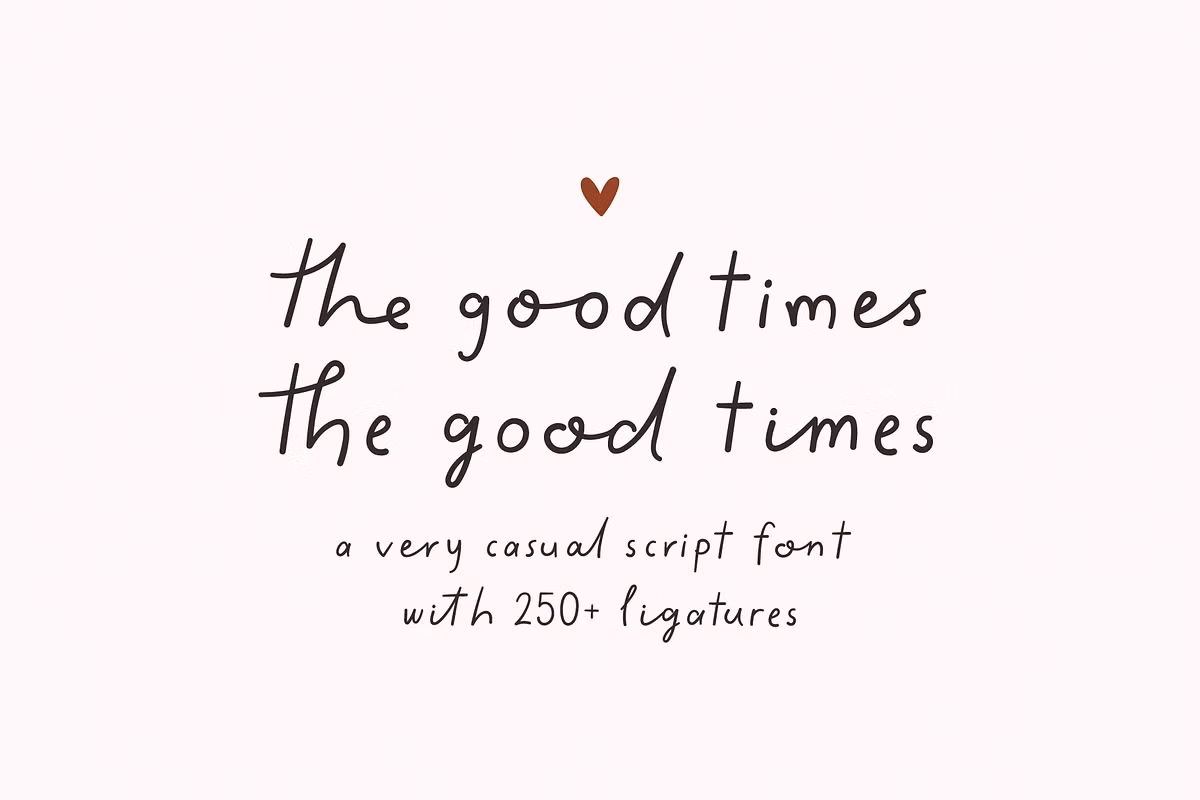
The Good Times Ligature Script Font is perfect for nostalgic branding projects, vintage-inspired designs, retro celebration materials, feel-good marketing campaigns, cheerful greeting cards, positive lifestyle brands, happy event invitations, uplifting social media graphics, joyful wedding stationery, optimistic business communications, memorable anniversary designs, and heartwarming creative projects.
The Good Times Ligature Script Font is exciting because it captures the essence of joyful nostalgia and positive memories through its flowing ligature script that embodies the warmth, happiness, and carefree spirit of life's most cherished moments and celebrations. This delightful typeface features elegant letter connections and cheerful character details that evoke feelings of contentment, gratitude, and the simple pleasures that make life meaningful. The font's optimistic aesthetic creates instant emotional connections with audiences who appreciate positivity, nostalgia, and the celebration of good times and happy memories.
The Good Times Ligature Script Font includes comprehensive font families: Regular Cheerful Style, Bold Celebration Weight, Light Happy Touch, Medium Joyful Balance, Italic Flowing Movement, Condensed Cozy Format, Extended Festive Width, Ligature Connection Sets, Shadow Warm Effects, and Special Celebration Symbols, providing complete solutions for positive and nostalgic design projects that celebrate life's happiest moments and most cherished experiences.
This uplifting typography solution transforms ordinary communications into joyful celebration experiences through its authentic nostalgic aesthetic and positive design language. The Good Times Ligature Script Font Free Download enables designers and positive brands to access premium celebratory typography that instantly adds warmth, happiness, and nostalgic charm to any creative project. The font's carefully crafted ligature connections ensure beautiful letter flow while maintaining excellent readability and distinctive celebratory character.
Event planners, lifestyle brands, and positive businesses trust The Good Times Ligature Script Font for its ability to communicate joy, nostalgia, and celebration to audiences seeking authentic happiness and meaningful connections through uplifting brand experiences. The typeface's cheerful construction performs beautifully across various applications, from intimate personal communications to large-scale celebratory campaigns. Its extensive character support includes multilingual capabilities and celebration design elements that enhance positive brand presentations.
The creative inspiration behind The Good Times Ligature Script Font draws from the universal human desire to celebrate life's positive moments, cherish happy memories, and create lasting connections through shared experiences of joy and contentment. This positivity-focused approach creates a font that feels genuinely celebratory while maintaining contemporary appeal across different nostalgic contexts and uplifting brand expressions.
Whether creating celebration brand identities, nostalgic marketing materials, or uplifting design campaigns, this ligature script delivers exceptional results that embody the spirit of good times and positive memories. Download The Good Times Ligature Script Font today and discover how premium celebratory typography can transform your design projects into joyful expressions of happiness, nostalgia, and the beautiful moments that make life worth celebrating.